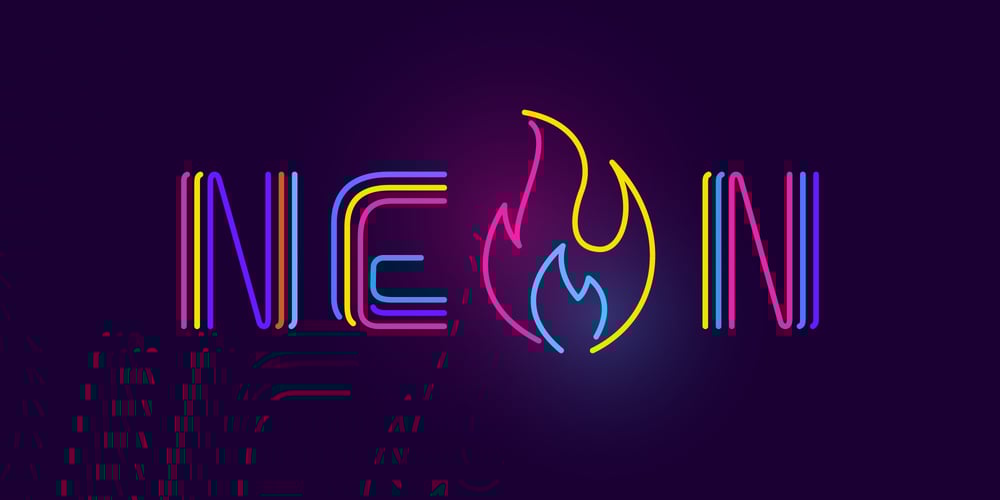
Three Neon Lines Font Family was designed by Roman Korolev and published by Kaer. Three Neon Lines contains 2 styles and family package options. Hello! Do you need colorful neon-style lettering? Please use the ready-colored font I’ve made.What you will get:* Colored and regular B&W styles* Uppercase (lowercase glyphs are same)* Multilingual support* Numbers and symbolsIf you have any questions or issues, please contact me: kaer.pro@gmail.com Best, Roman.—*You can use color fonts in PS since CC 2017, AI since CC 2018, ID since CC 2019, QuarkXPress since 2018, Pixelmator, Sketch, Affinity Designer Since macOS 10.14 Mojave, Paint.NET Windows only.**Please note that the Canva does not support color fonts!*